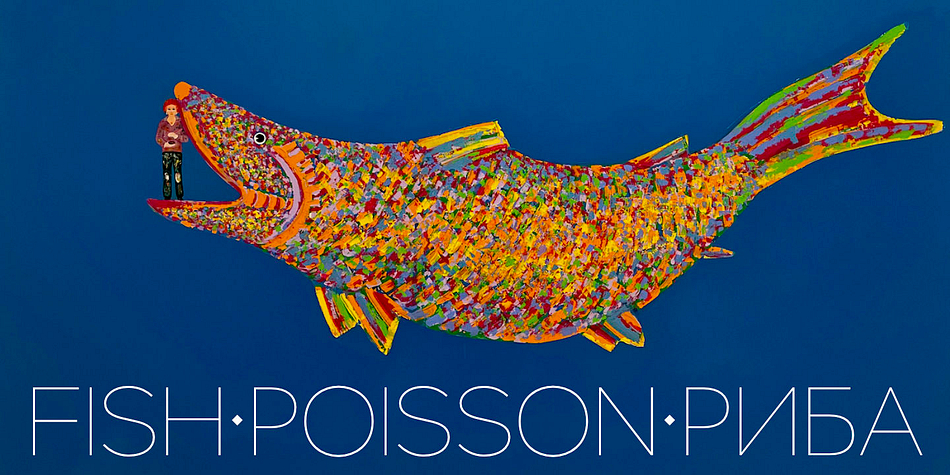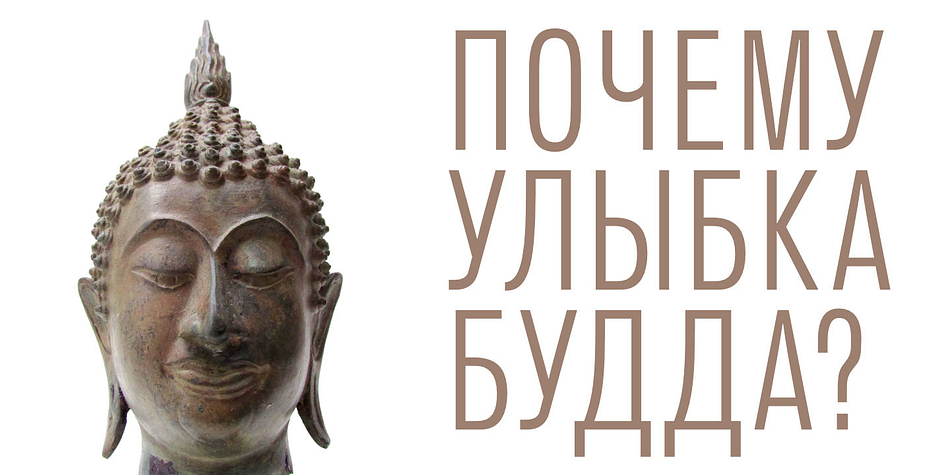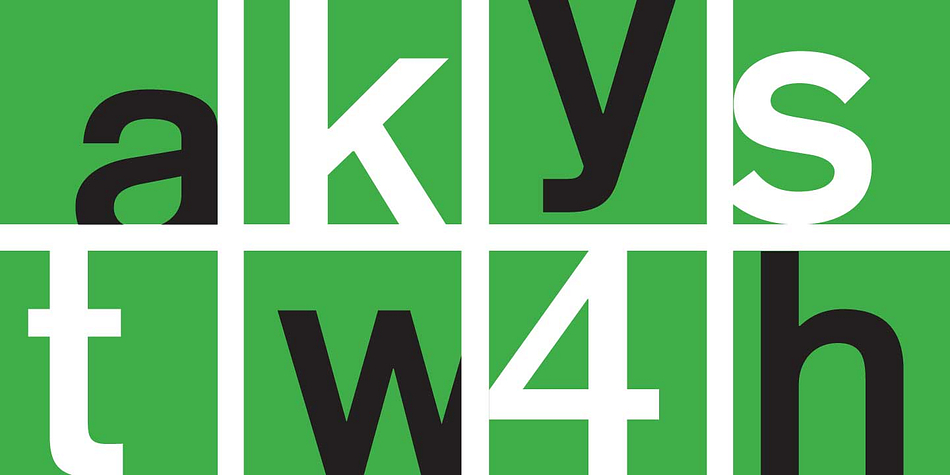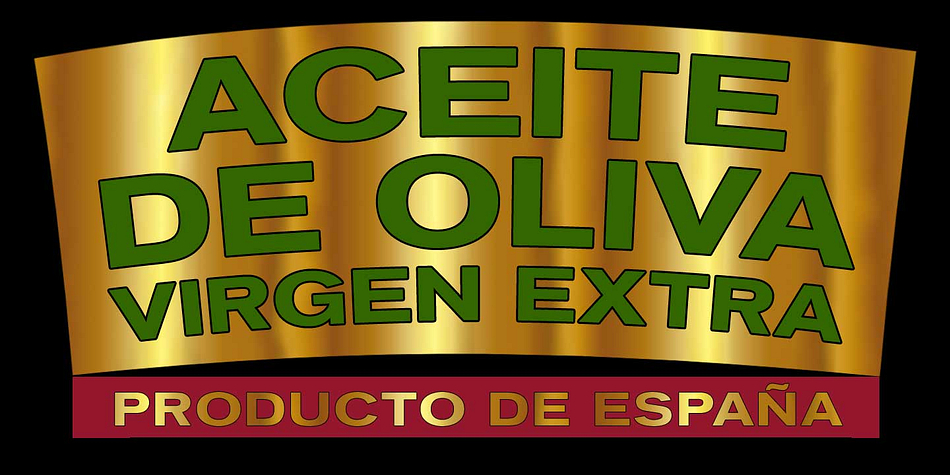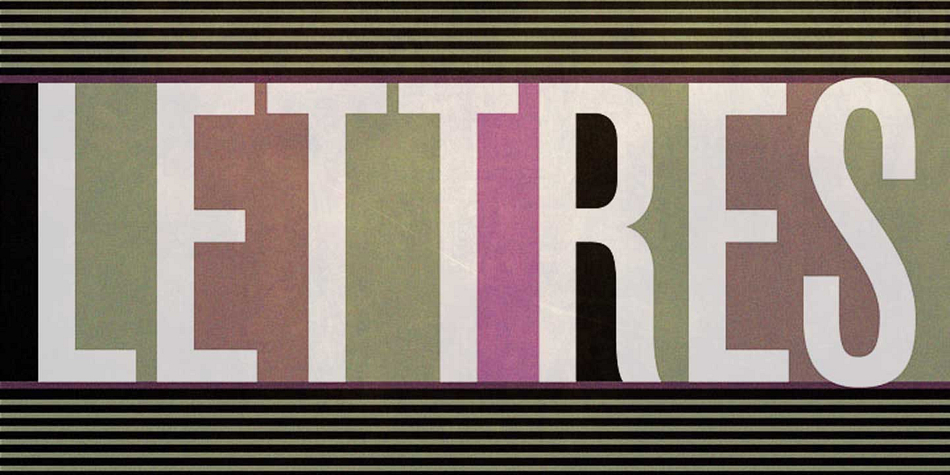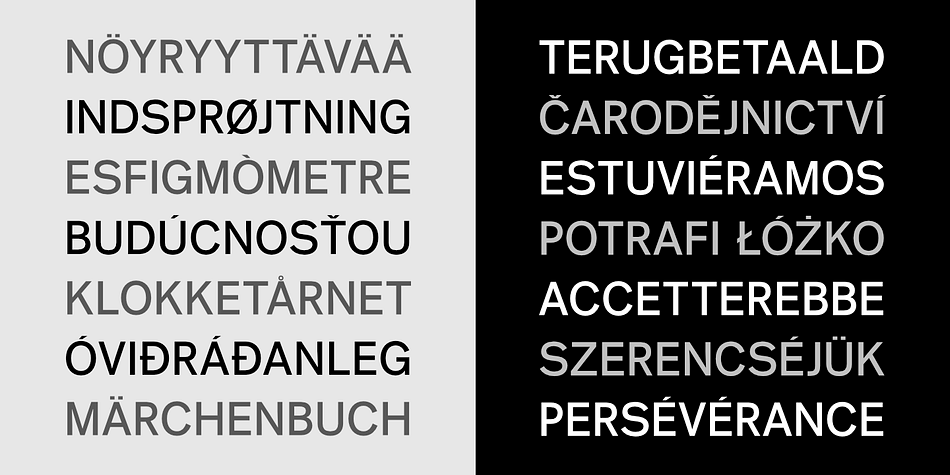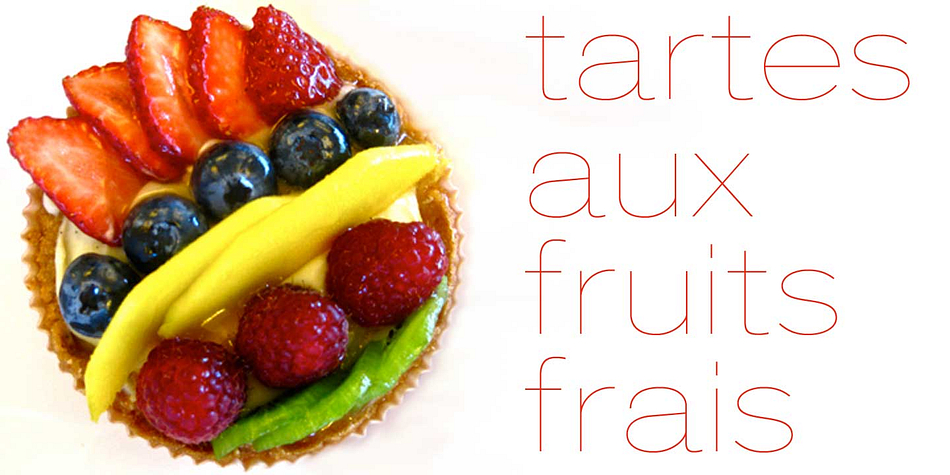
Standard CT
Standard CT is a display, sans serif and stencil font family. This typeface has thirty-eight styles and was published by CastleType.
CastleType was commissioned in 1991 by San Francisco Focus magazine to digitize three members of the Standard family.
This is a Continental lineale that was popular in Switzerland in the 1950s and later in the United States.
A cousin to the ubiquitous Helvetica and very similar to Akzidenz-Grotesk, Standard is an alternative that is considerably warmer and a bit more idiosyncratic.
In 2008, CastleType released additional members of the Standard CT family to make it a complete typographic solution with three widths (normal, condensed, extended) of four weights each (Regular, Medium, Bold, and Extra Bold).
Some of the original Standard fonts, particularly Standard Regular, appear to have been hastily designed (or perhaps too closely imitated Helvetica); these have been greatly improved in the CastleType versions with more harmonious proportions and other refinements.
The three lighter weights of the Extended subfamily were designed from scratch based on the new Standard CT Regular and Standard CT Extended Extra Bold.
More recently, four light weights (Light, Extra Light, Ultra Light, and Hairline) have been added to each of the three widths.
The entire Standard CT family includes support for most European languages, OpenType features, arbitrary fractions, and a collection of geometrics, dingbats & fleurons.
Standard CT includes 9 OpenType features including Standard Ligatures.
Standard CT is a sans serif and stencil font family.
CastleType was commissioned in 1991 by San Francisco Focus magazine to digitize three members of the Standard family, a Continental lineale that was popular in Switzerland in the 1950s and later in the United States. A cousin to the ubiquitous Helvetica and very similar to Akzidenz-Grotesk, Standard is an alternative that is considerably warmer and a bit more idiosyncratic.
Some of the original Standard fonts, particularly Standard Regular, appear to have been hastily designed; these have been greatly improved in the CastleType versions with more harmonious proportions and other refinements. CastleType has expanded the Standard CT family to make it a complete typographic solution with four widths (normal, condensed, semi-extended and extended) of nine weights each (Hairline through Extra Bold).
The entire Standard CT family supports most European languages including those that use the Cyrillic alphabet, OpenType features, arbitrary fractions, and a collection of geometrics, dingbats & fleurons.